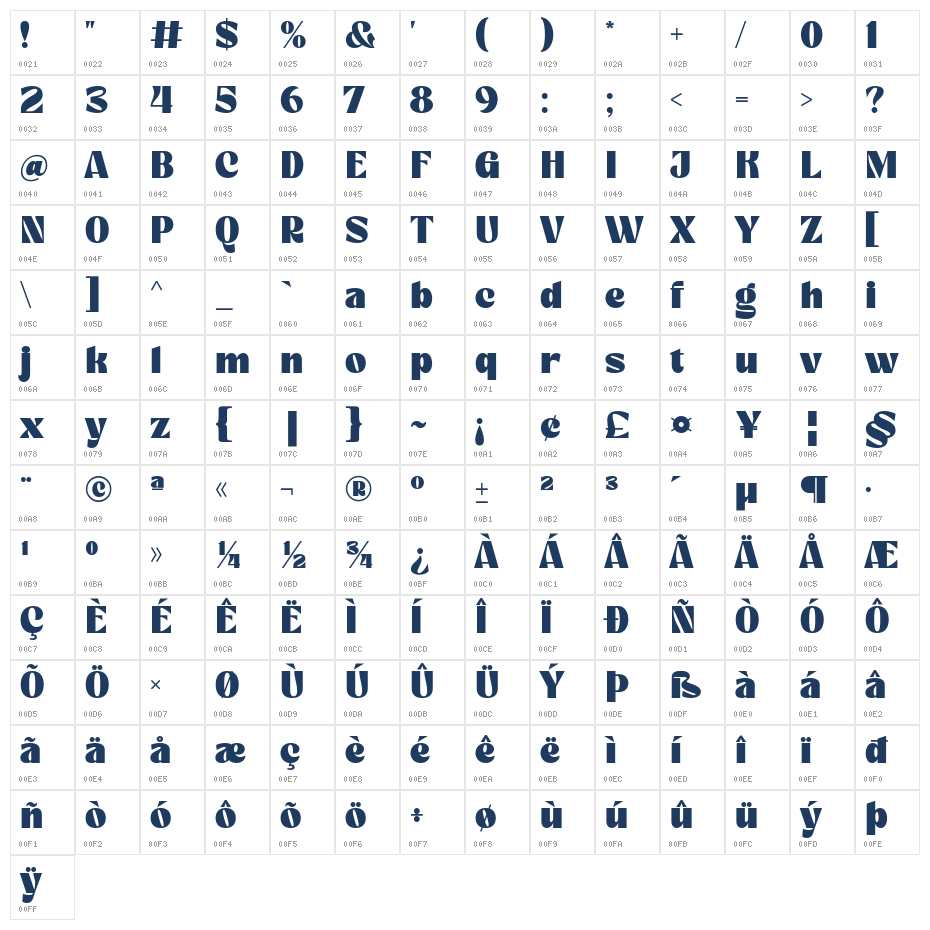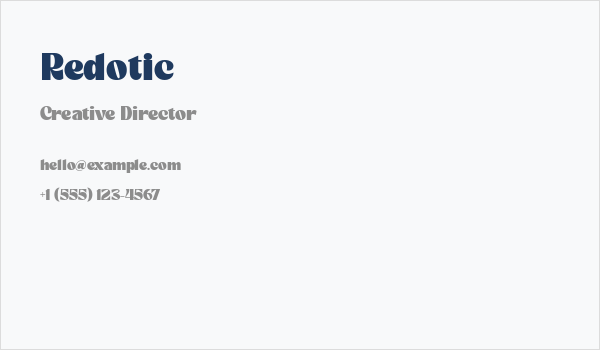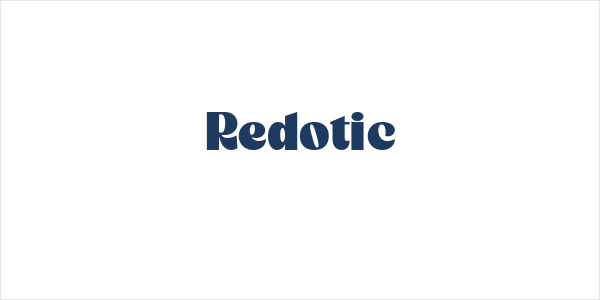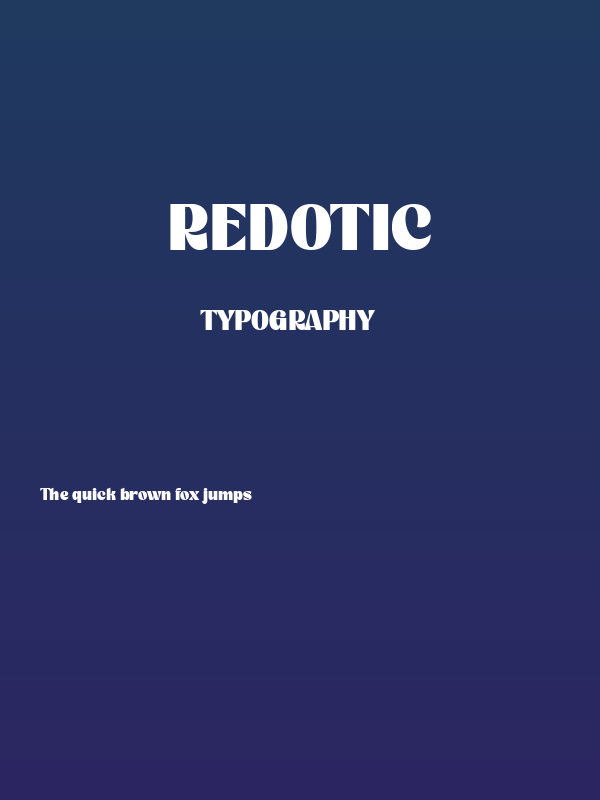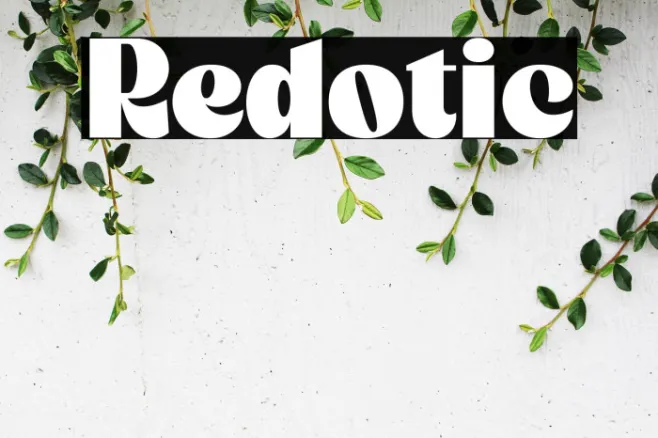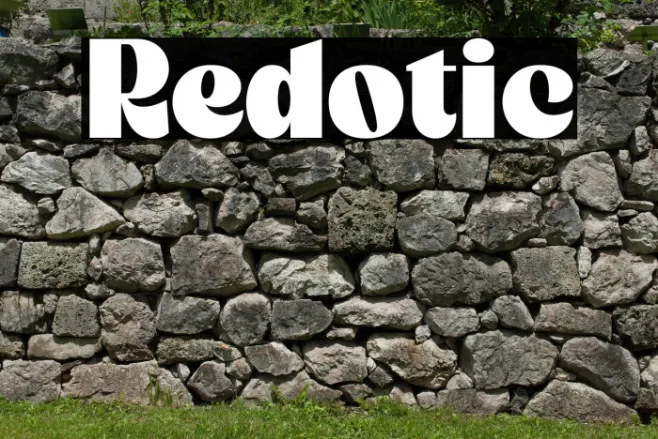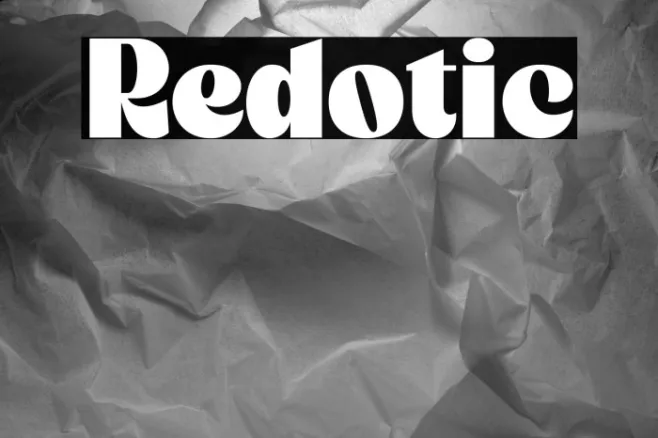
Redotic Font
Redotic Description
Bold, geometric serif font with a vintage and decorative style, characterized by thick strokes and distinctive angular cuts.
| Overall Style | Vintage, Decorative |